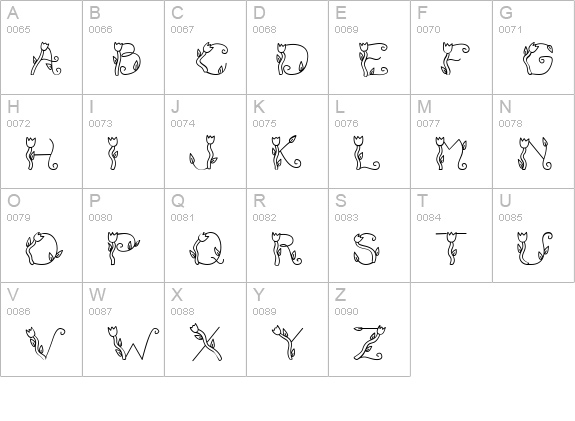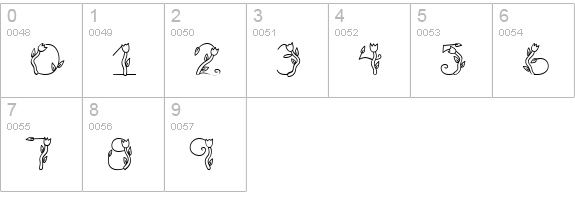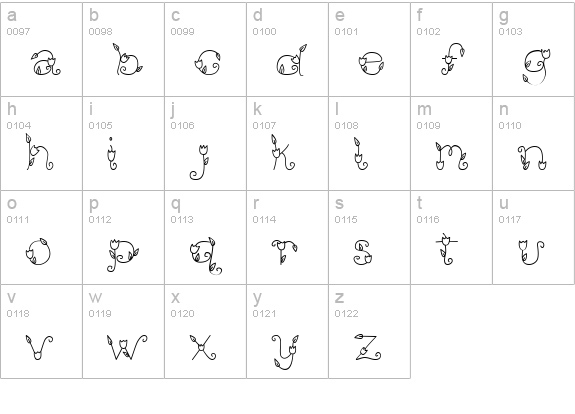
CK Tulips Font Details
Introducing CK Tulips font, a whimsical and playful typeface that brings a touch of elegance to any design project. With its delicate and flowing lines, CK Tulips exudes a sense of charm and sophistication. Perfect for invitations, branding, and other creative projects, this font is sure to make your text stand out. What makes CK Tulips even more appealing is that it is available for free download at FontsMarket.com. You can easily access this beautiful font and use it in your designs without any cost. So why wait? Add a touch of elegance to your projects with CK Tulips font today!